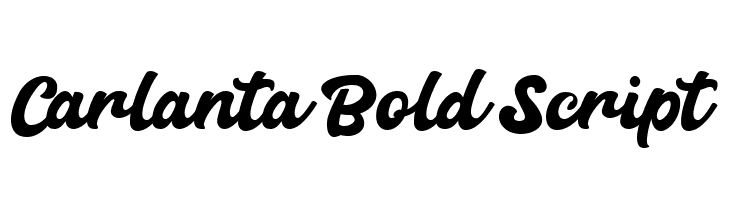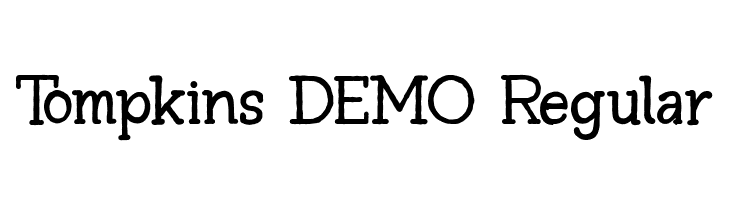
A bold slab serif font with a vintage typewriter style.
A modern, hollow font with smooth curves and a futuristic aesthetic.
A bold, playful script font with a handwritten style.
A playful, hand-drawn font with a whimsical and creative style.
A modern, geometric font with lines connected by circular nodes.
A whimsical, hand-drawn font with a playful and dynamic character.
A bold, playful handwritten font with smooth, flowing strokes.
A bold, 3D font with a dripping, horror-themed style.
A bold, condensed, and italic font with a dynamic and playful style.
A modern, italic font with bold strokes and a dynamic slant.